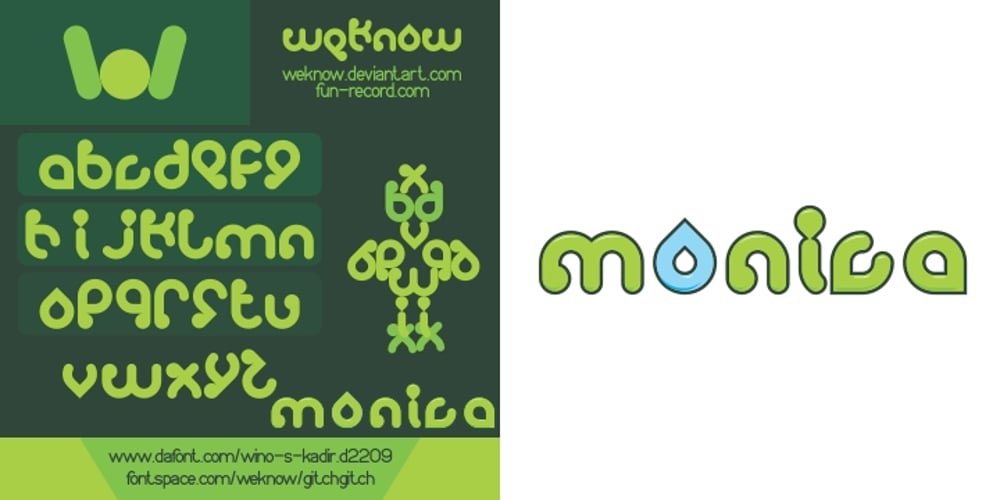
Monica Font Family was designed by Wino Sutarmin Kadir and published by Weknow. Monica contains 1 styles and family package options. Give a groovy fun simple rounded, fancy, a cute looks to any text project